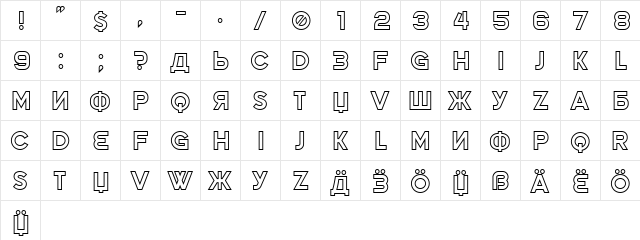
Cold War Regular
Design Context for Cold War Typeface
Cold War takes a measured approach to typography — its balanced proportions and neutral character make it a reliable workhorse for both digital and print work.
Pro Tip: Use Cold War in both headline and body roles to test its range before committing to a single application.